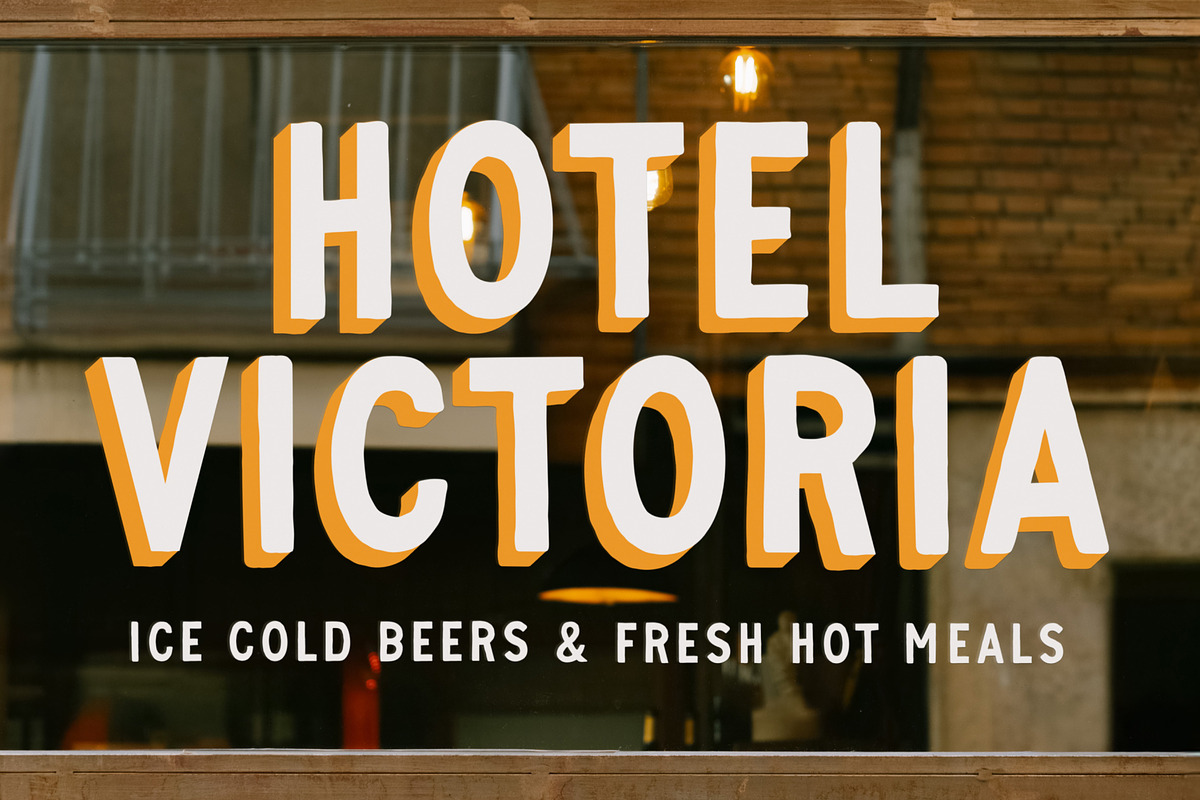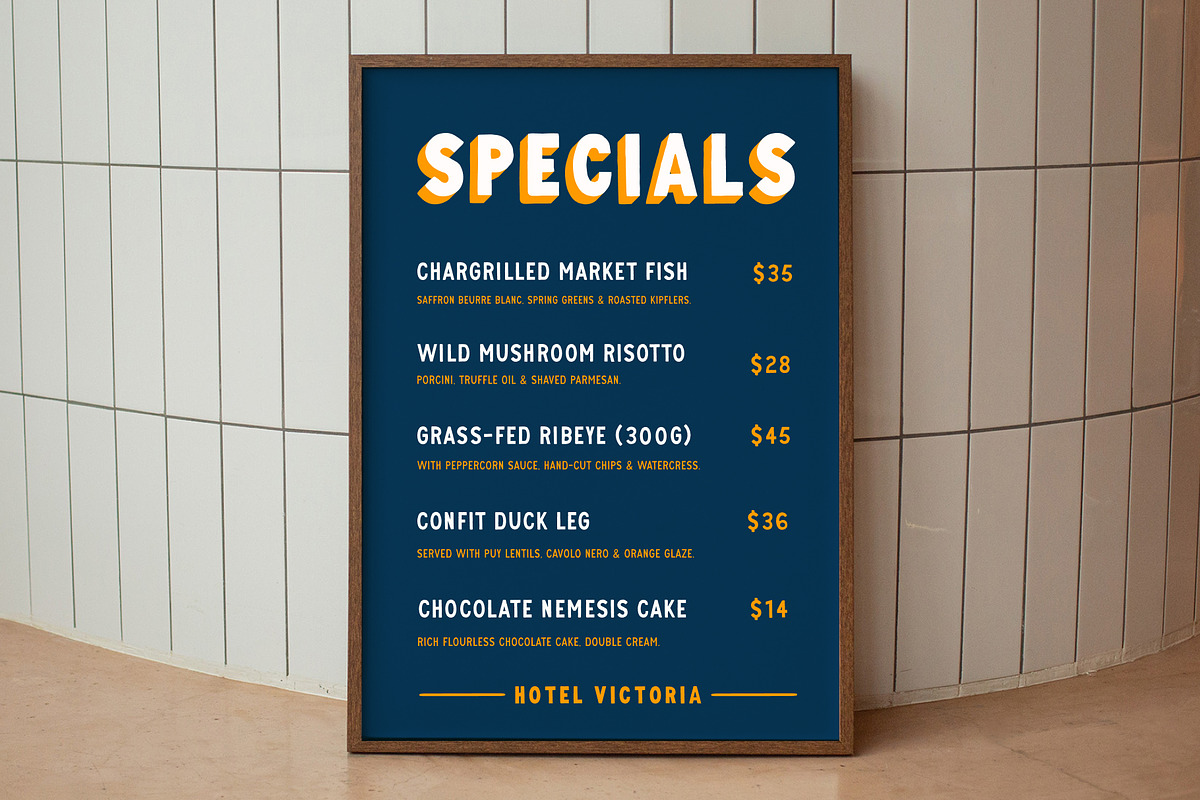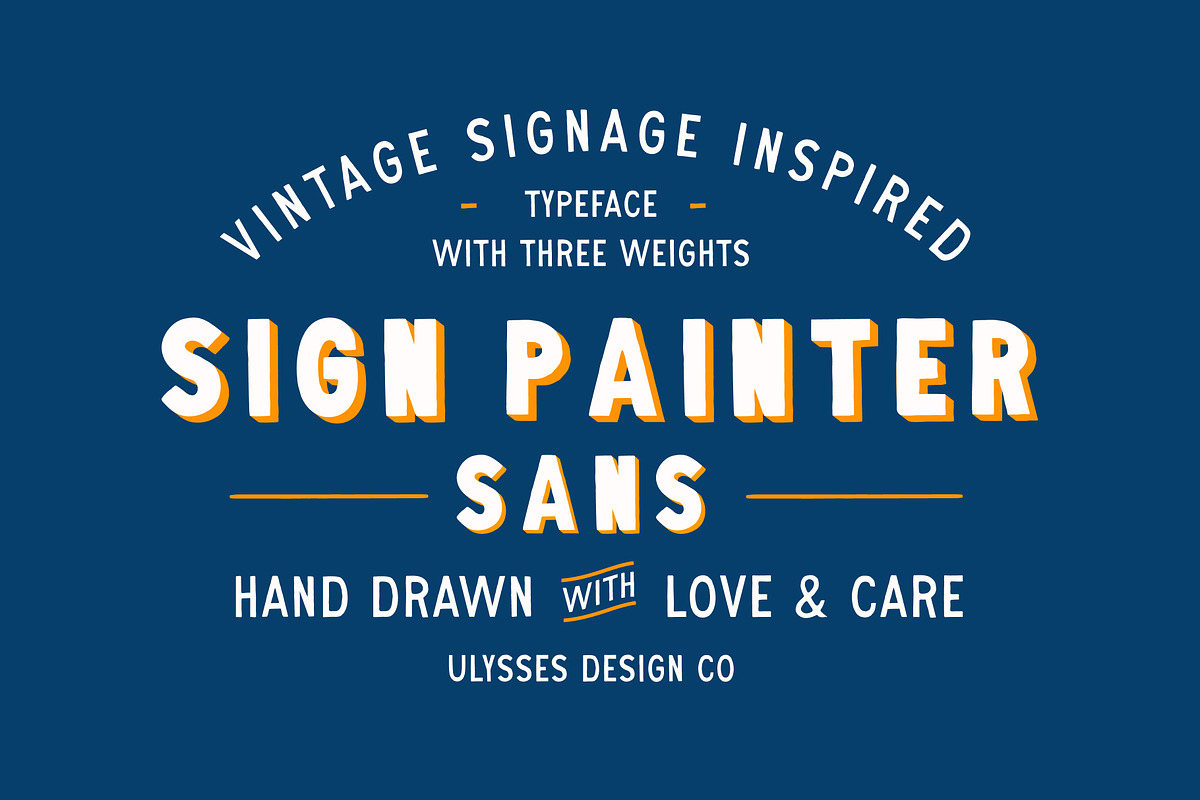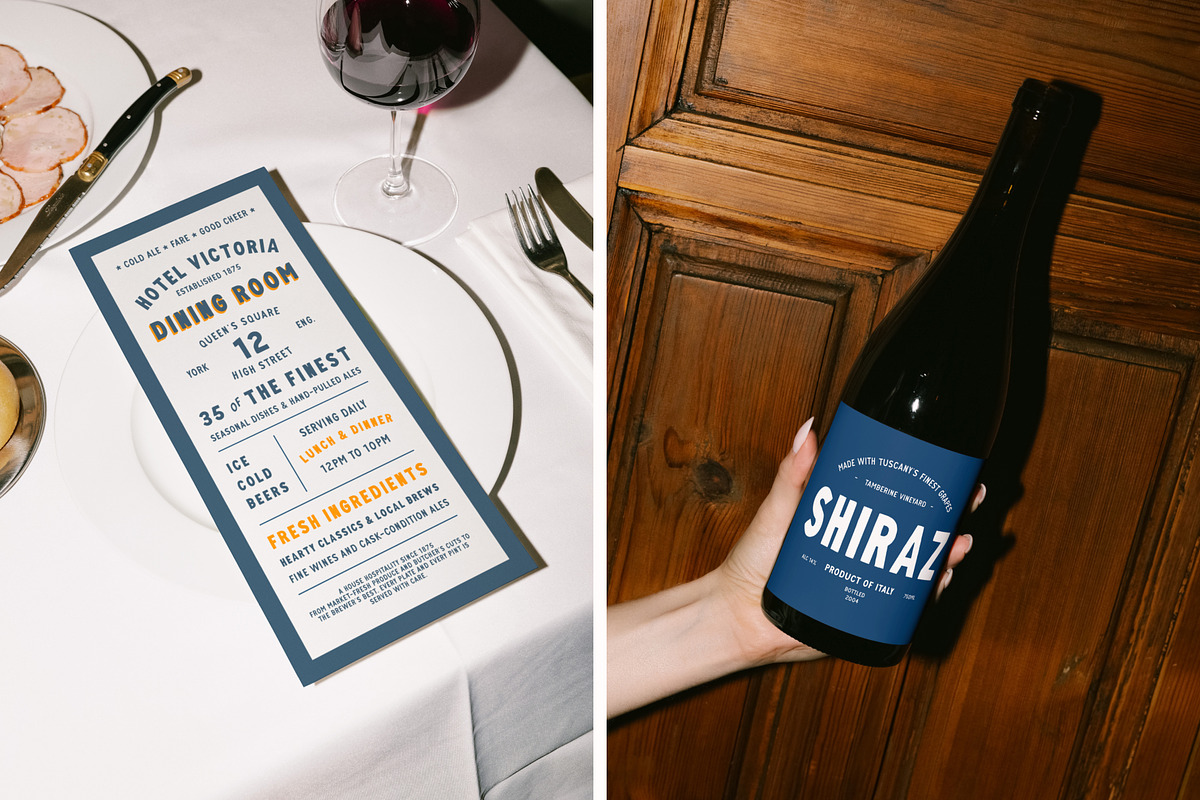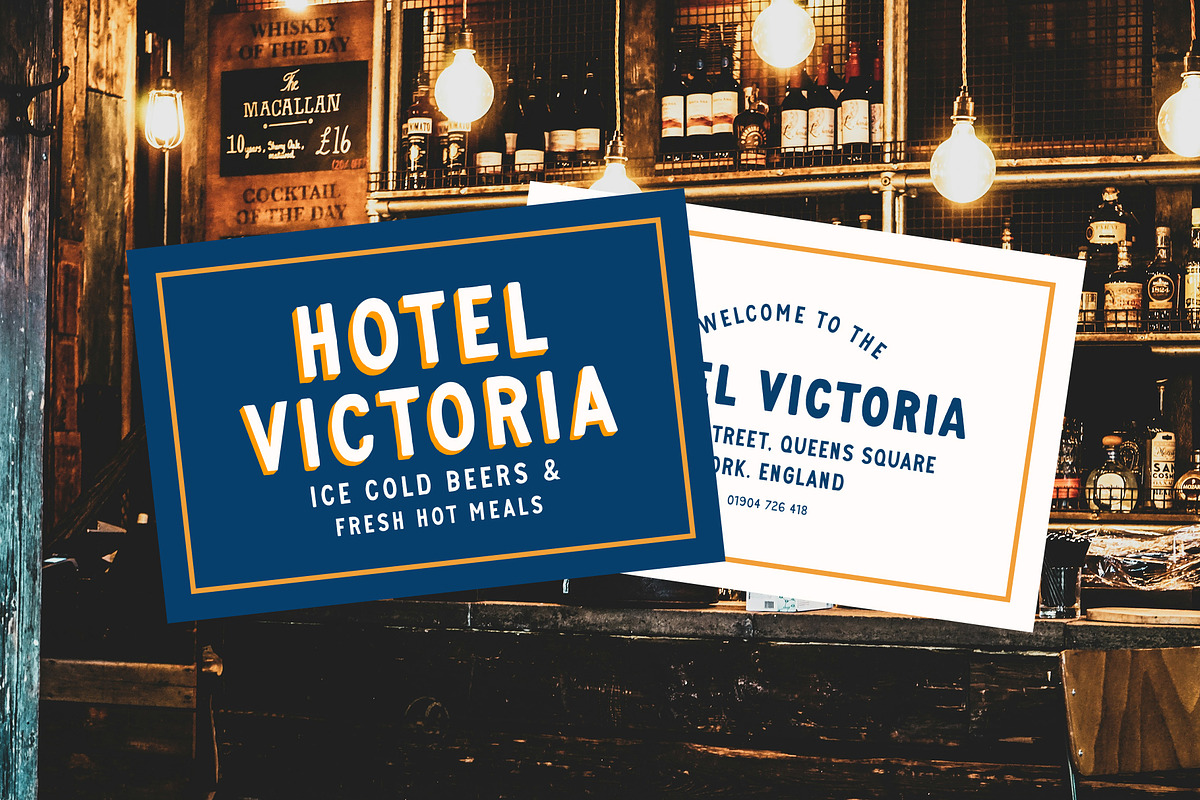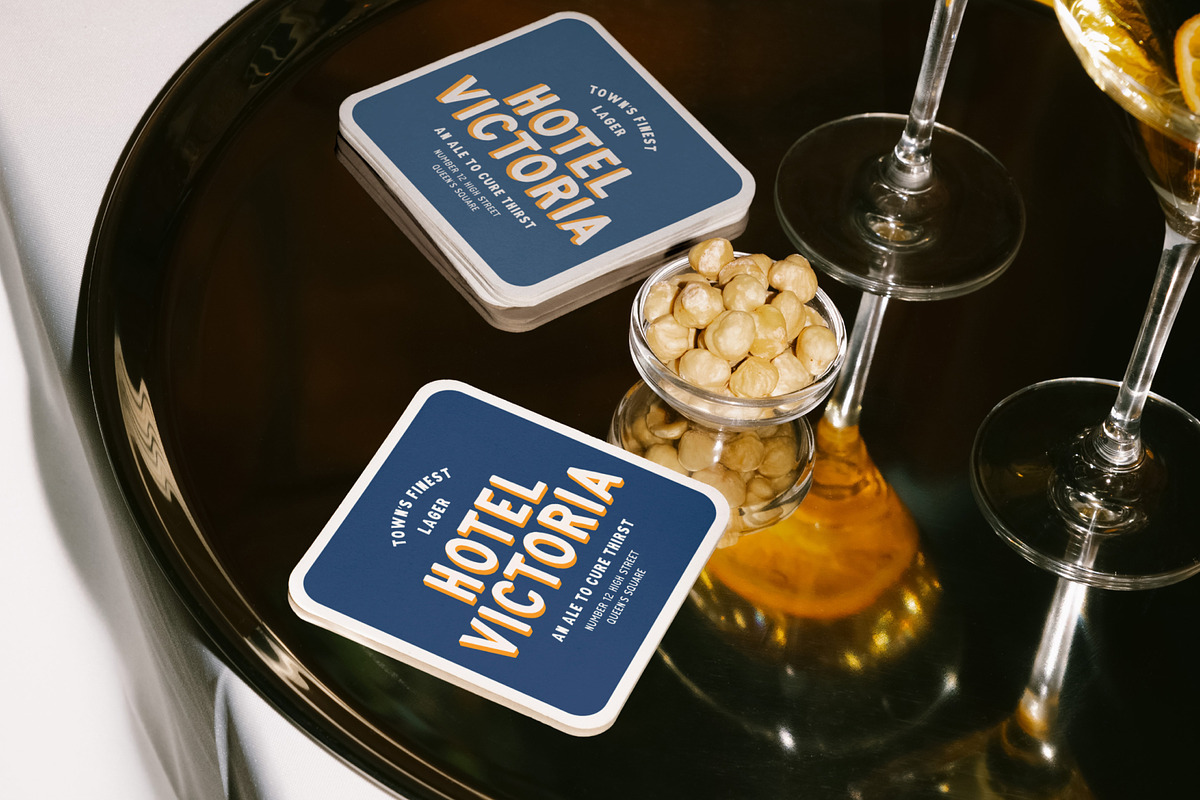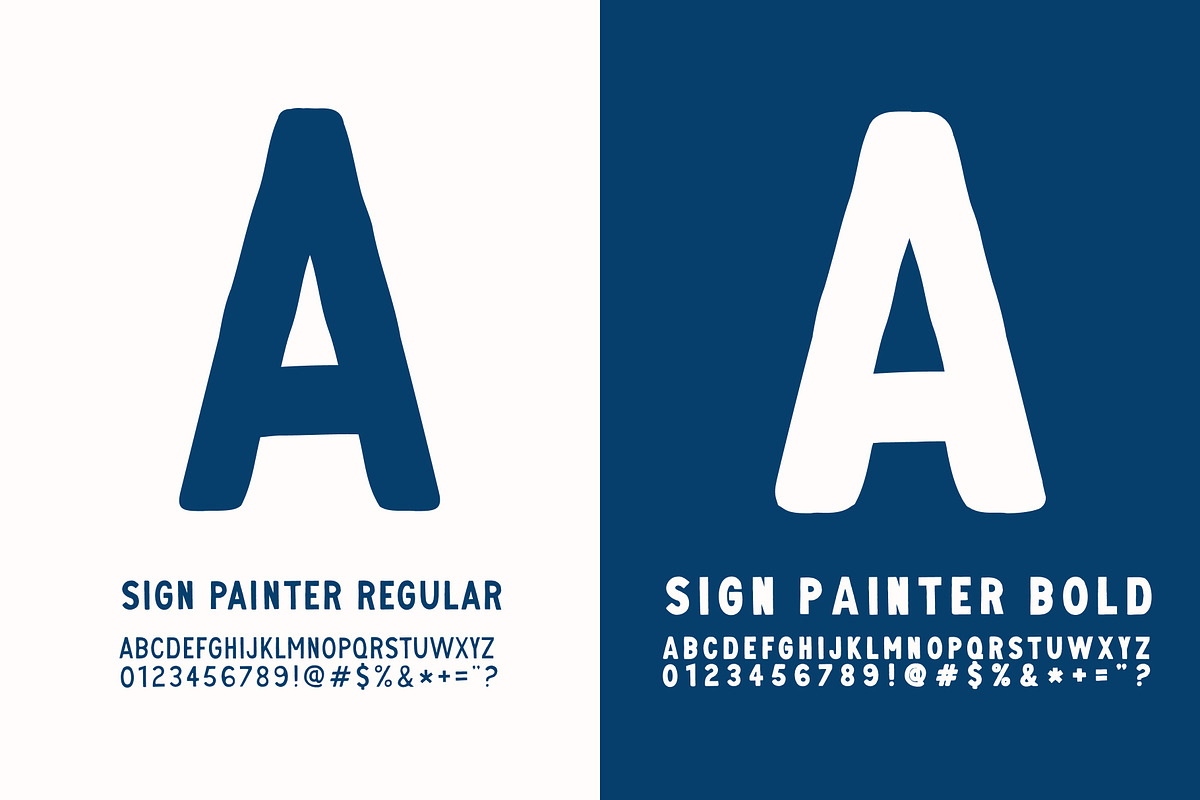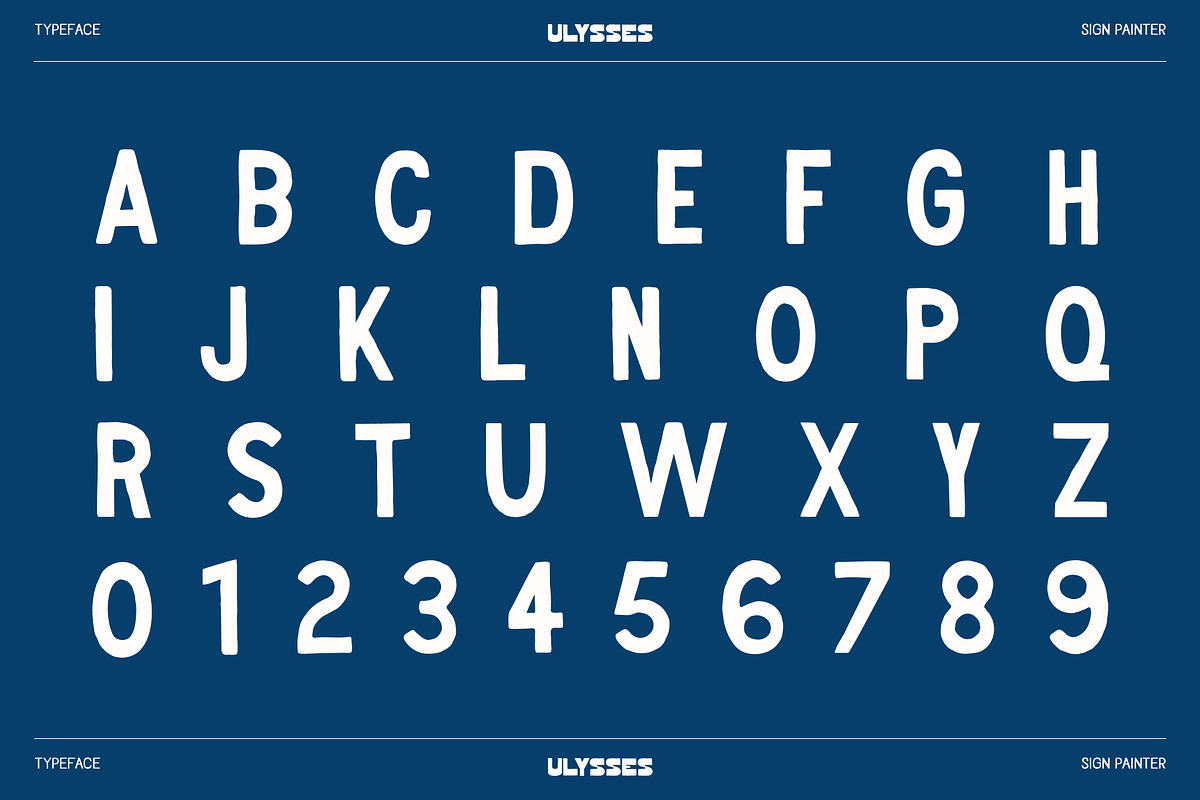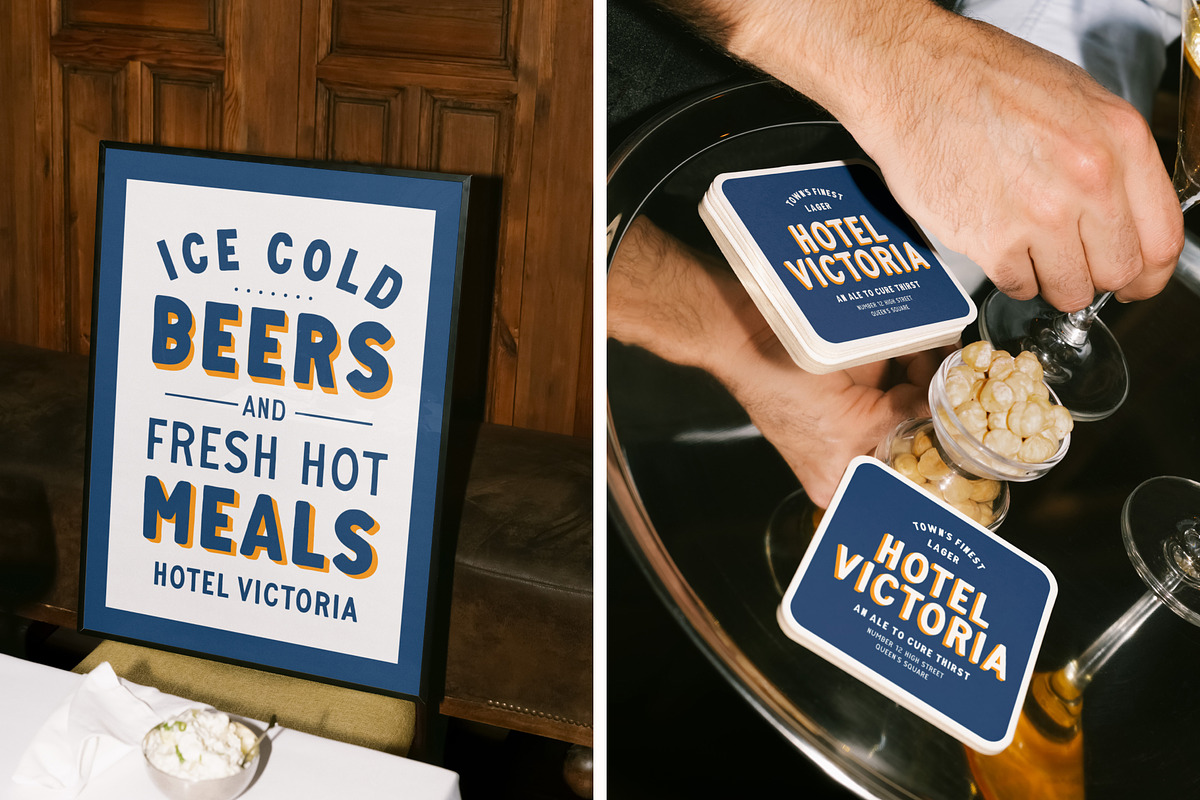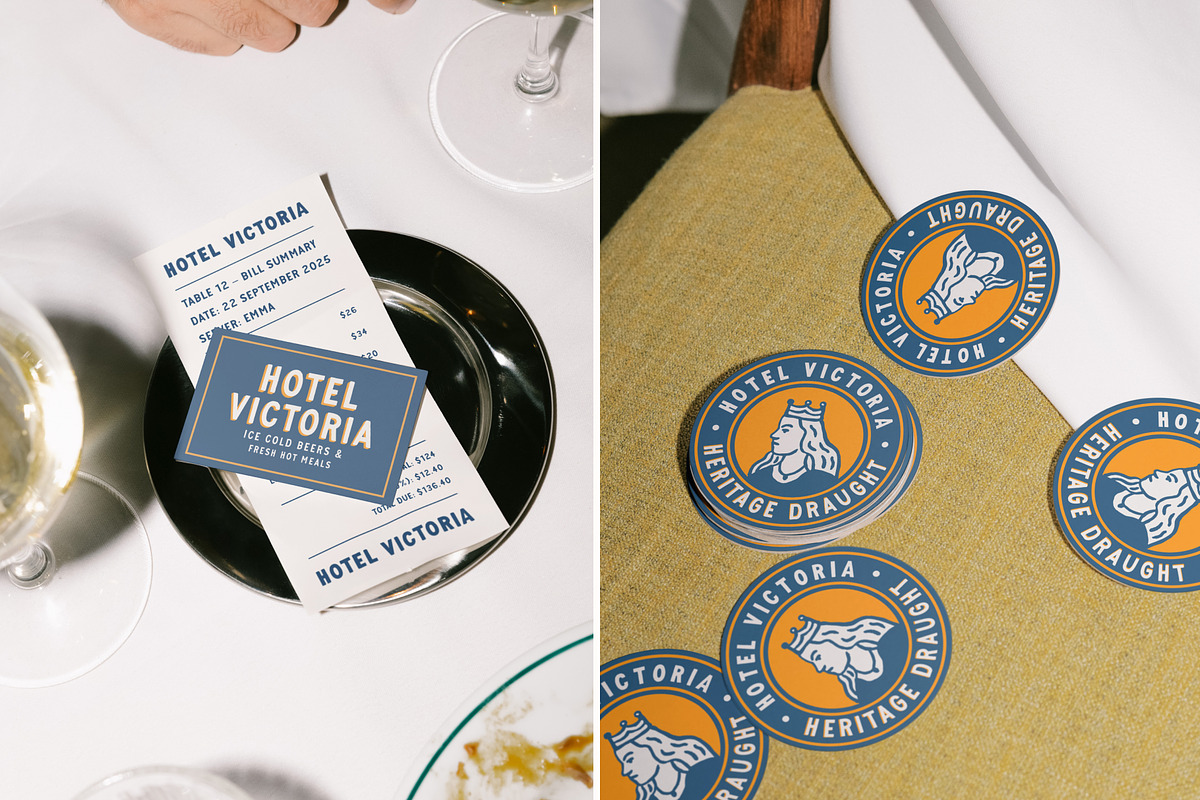
Sign Painter Sans
Introducing Sign Painter Sans, our latest hand-drawn typeface.
Here at Ulysses Design Co, we love vintage letterpress typography. The charming subtle print imperfections are full of authenticity and soul.
This font was inspired by an alphabet from The Expert Sign Painter by Asham Kelly, a book documenting American letterpress type from 1849 to 1928. The style was once a hallmark for shopfront and restaurant window signage. We wanted to create a typeface that lets designers easily bring that feeling to life.
All the letters have been hand-drawn in-house by the Ulysses Design Co team. We’ve done the sign painting so you don’t have to! The font comes in two styles and three weights for flexibility. Use it to add some vintage inspired hand sign painted charm across your branding projects.